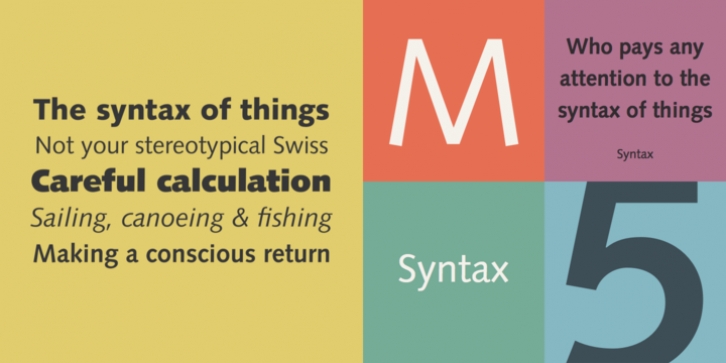
Syntax downloadDesigner: Hans Eduard Meier
Publisher: Linotype
Designed by H.E. Meier for Stempel in 1968, this typeface was one of the first attempts to go beyond the Swiss sanserifs Folio, Univers and Helvetica by returning to the earlier humanist principles.